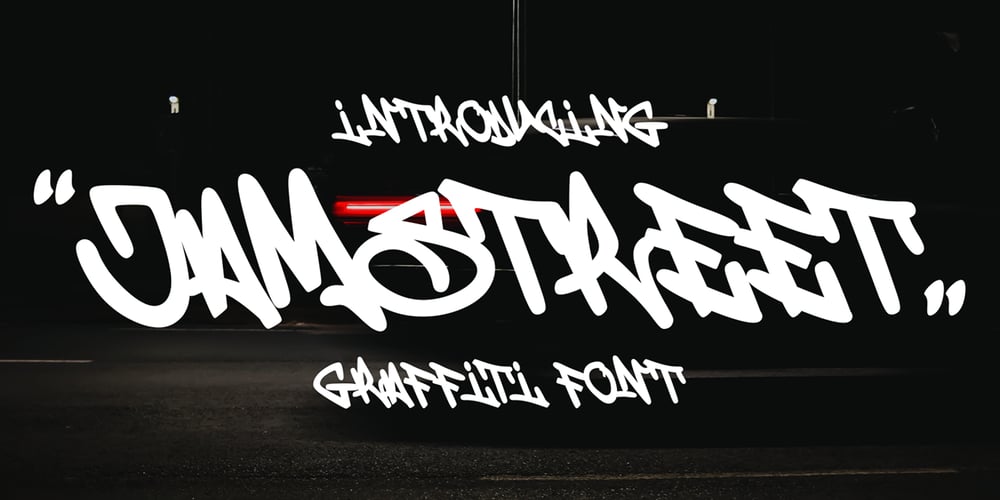
Jamstreet Graffiti Font Family was designed by Sipanji and published by Sipanji21. Jamstreet Graffiti contains 1 styles and family package options. Jamstreet Graffiti is a display font with one line graffiti style. It will elevate a wide range of design projects to the highest level, be it branding, headings, wedding designs, tittle, signatures, logos, labels, movie, video, magazine, logotype, crafting, packaging, advertising and much more!